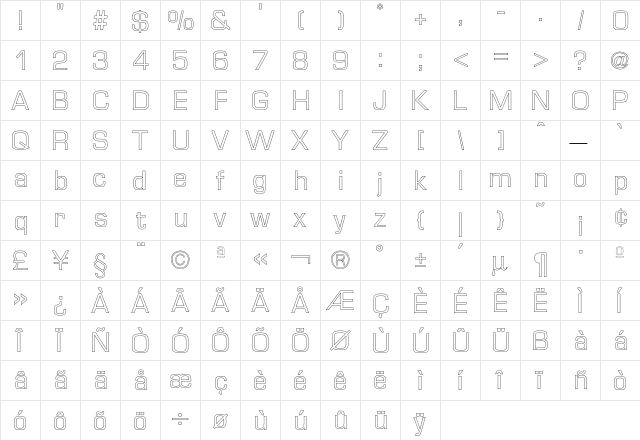
Euro TechnicOutline
Design Context for Euro Typeface
Euro channels digital-age aesthetics through its sharp, structured letterforms — ideal for brands that want to signal innovation.
Pro Tip: Try Euro with generous letter-spacing in UI labels and navigation — the geometric forms benefit from room to breathe.